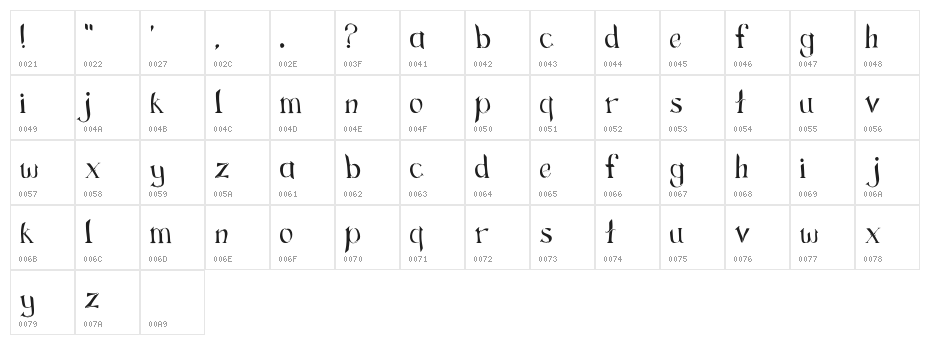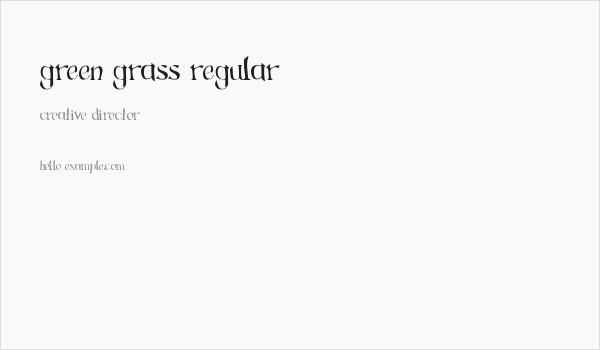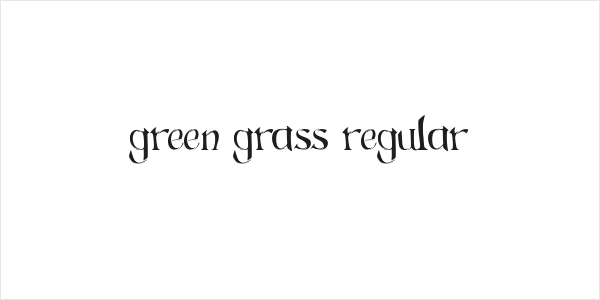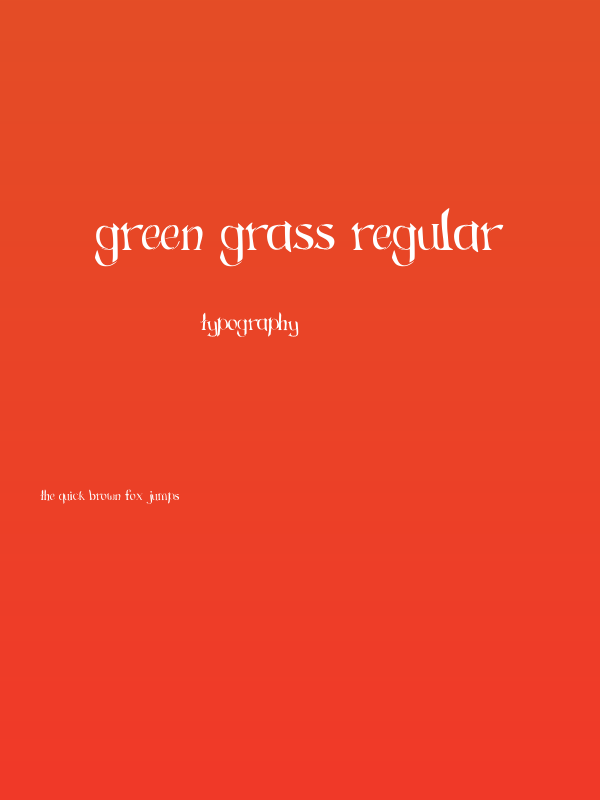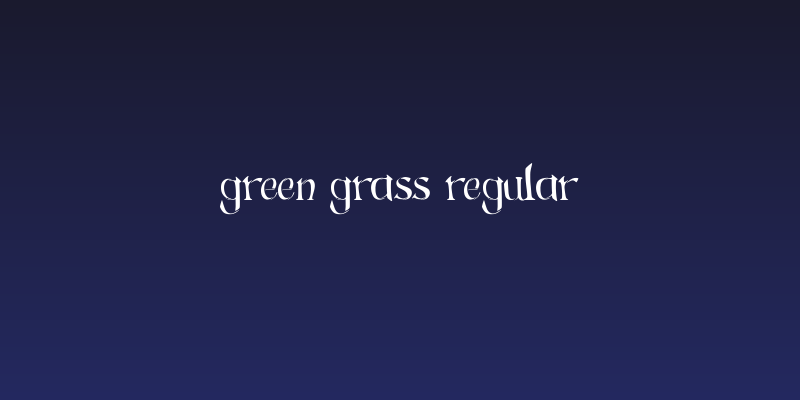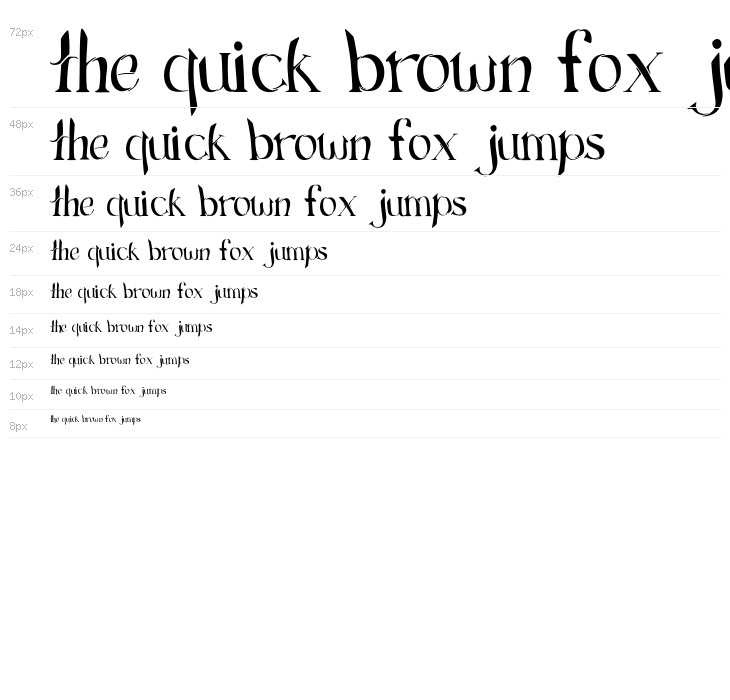
Green Grass Regular Font
Green Grass Regular Description
This font features a unique blend of modern and classic styles, characterized by its sharp, angular lines and distinct serifs. The letters have a calligraphic influence, with a slight tilt that adds a dynamic feel. The strokes vary in thickness, providing a medium contrast that enhances readability while maintaining an artistic flair. The overall design is both elegant and bold, making it suitable for creative projects that require a touch of sophistication.
Use CaseLogos, Invitations, Artistic Posters
Proposed ProjectsIdeal for branding, invitations, and artistic posters where a touch of elegance is desired.